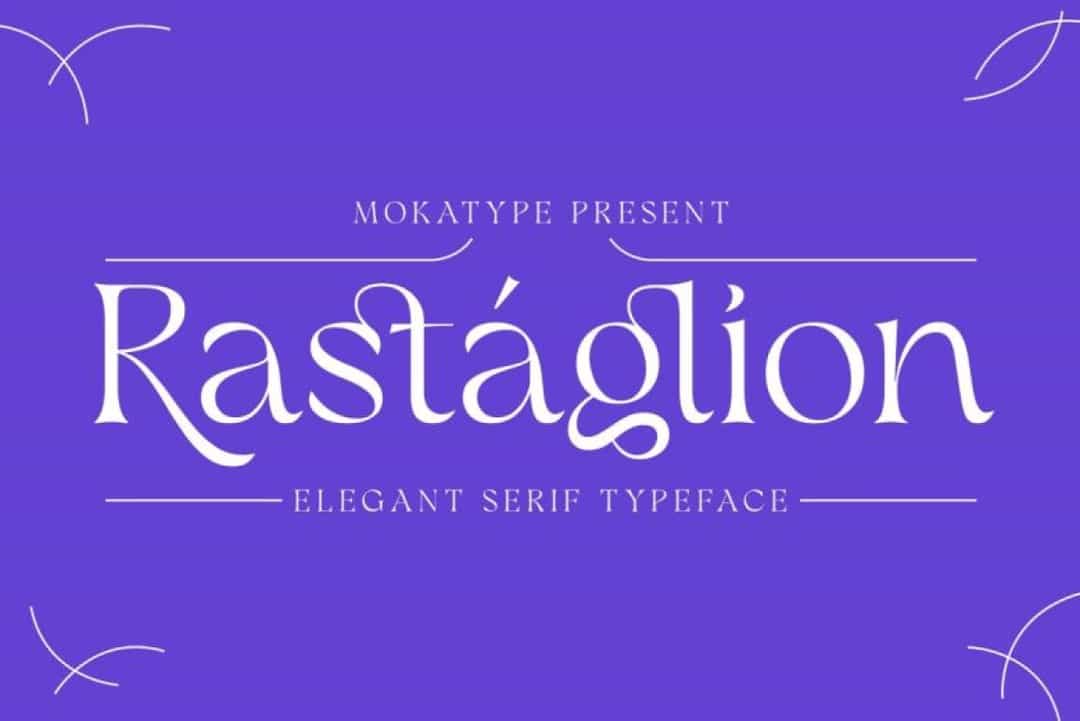
Rastaglion is an older-modern serif font, designed with one weight. Inspired by contemporary classification of serif typefaces in the early 20th century, its purpose was to appear like a fluid font paired with several connected letters for rhythmic lettering effects.